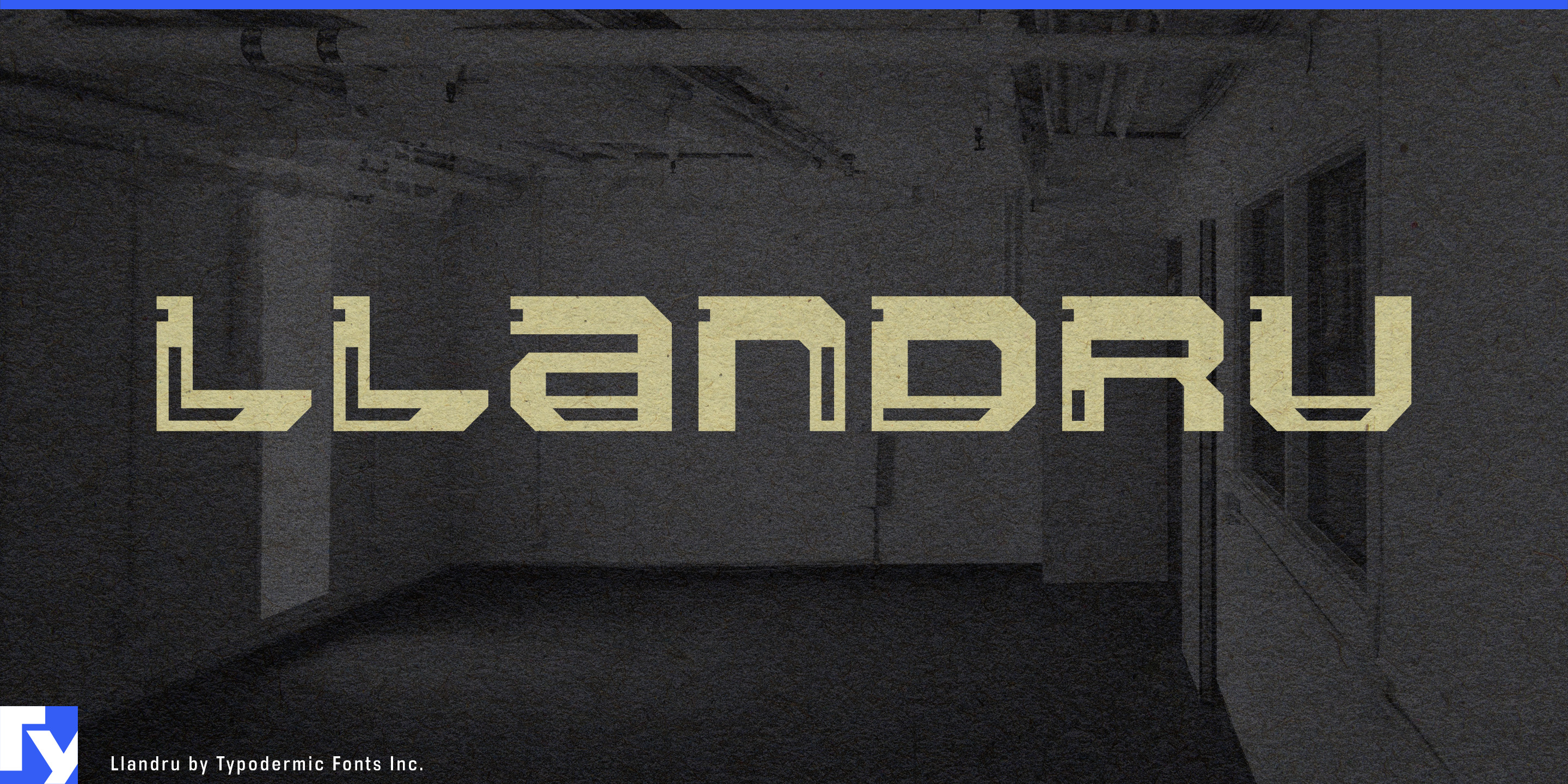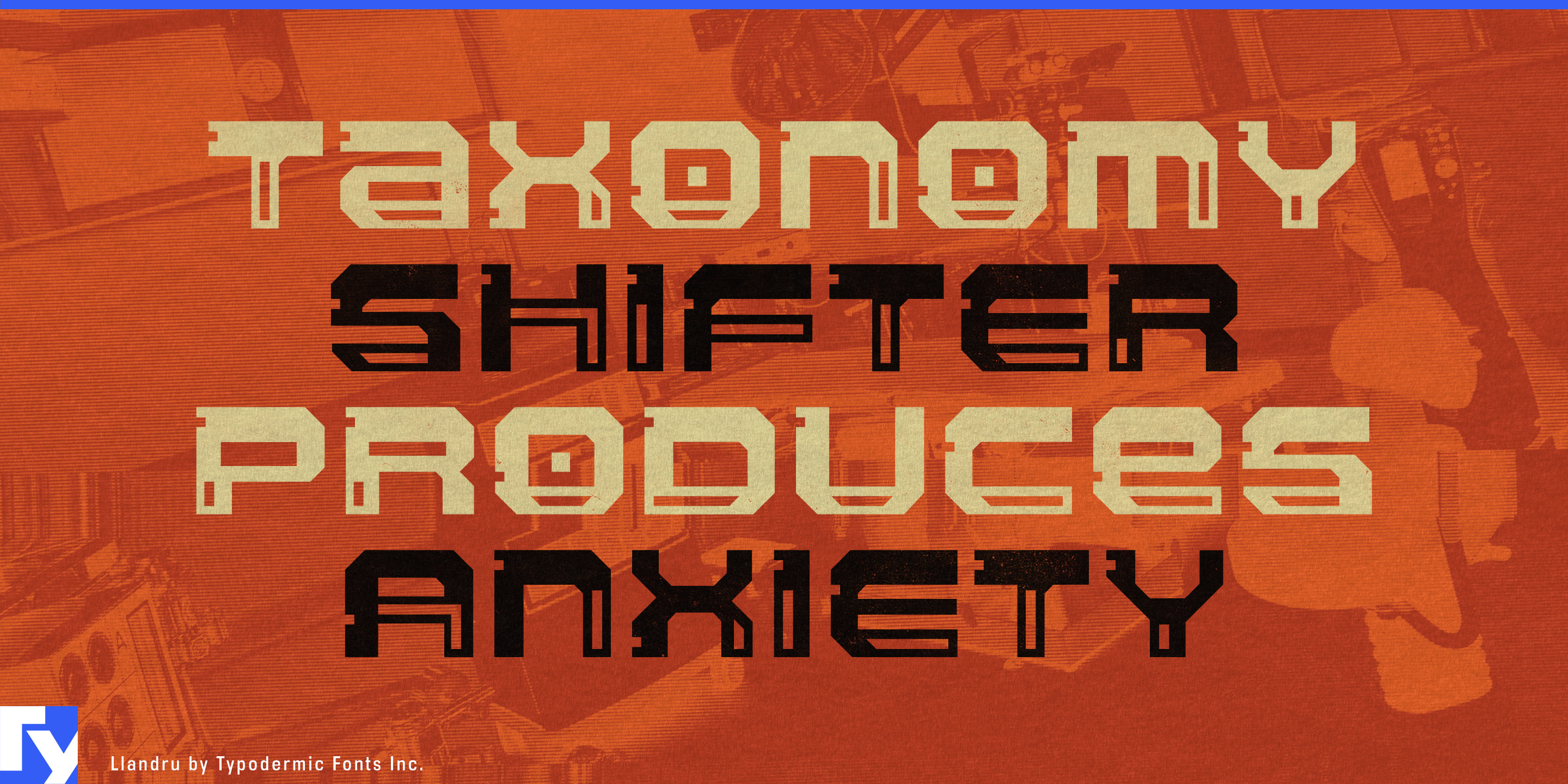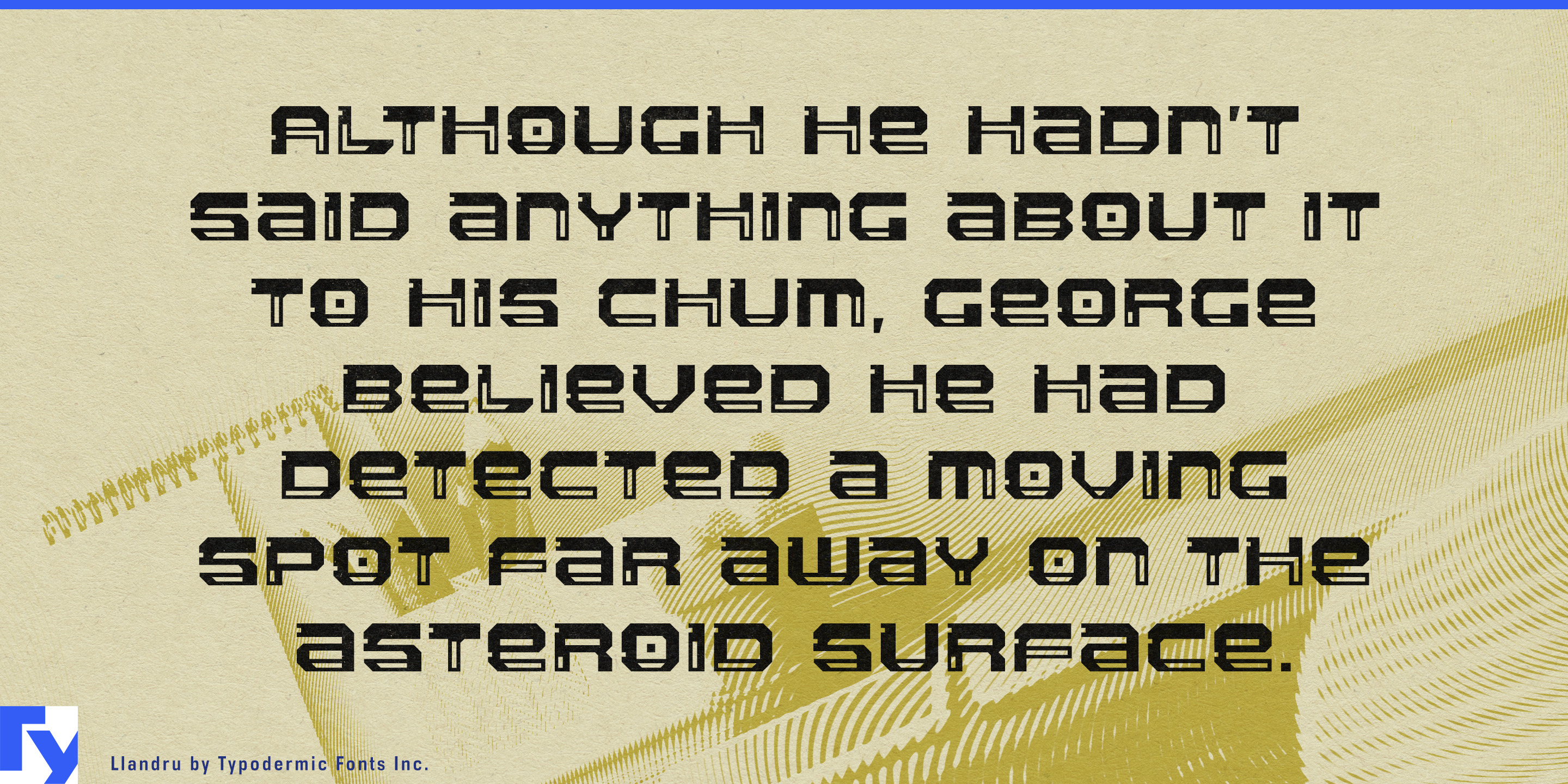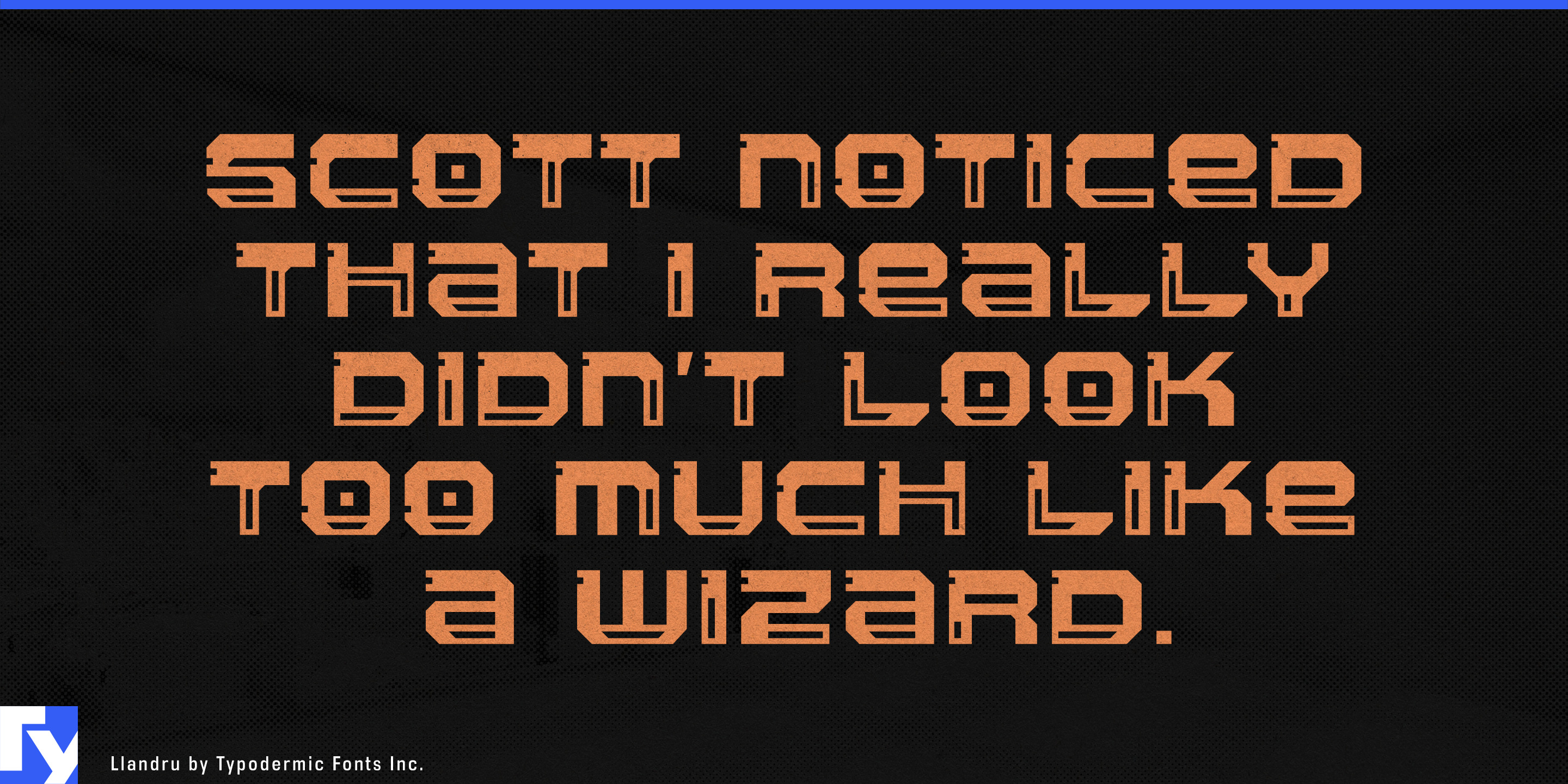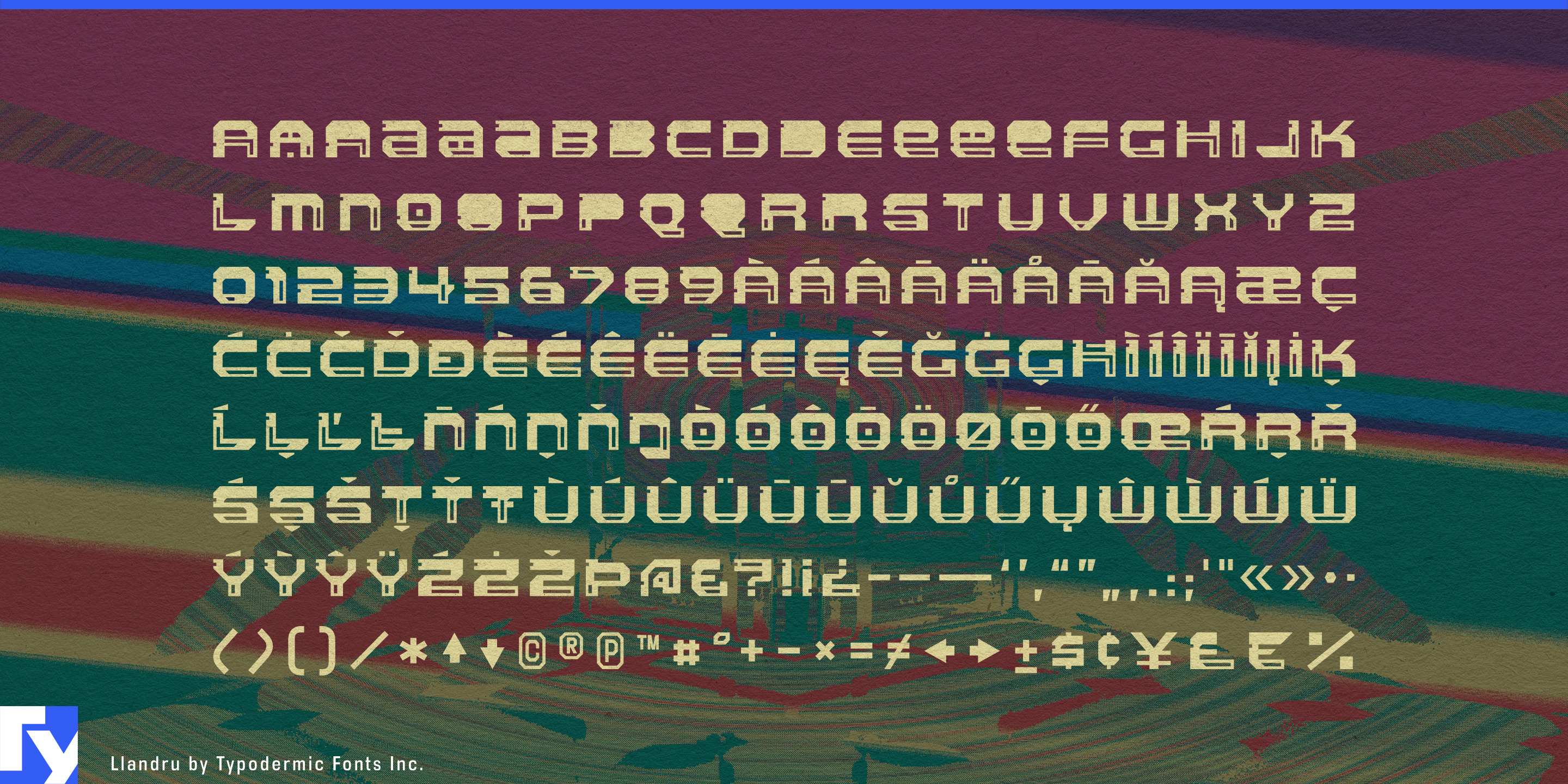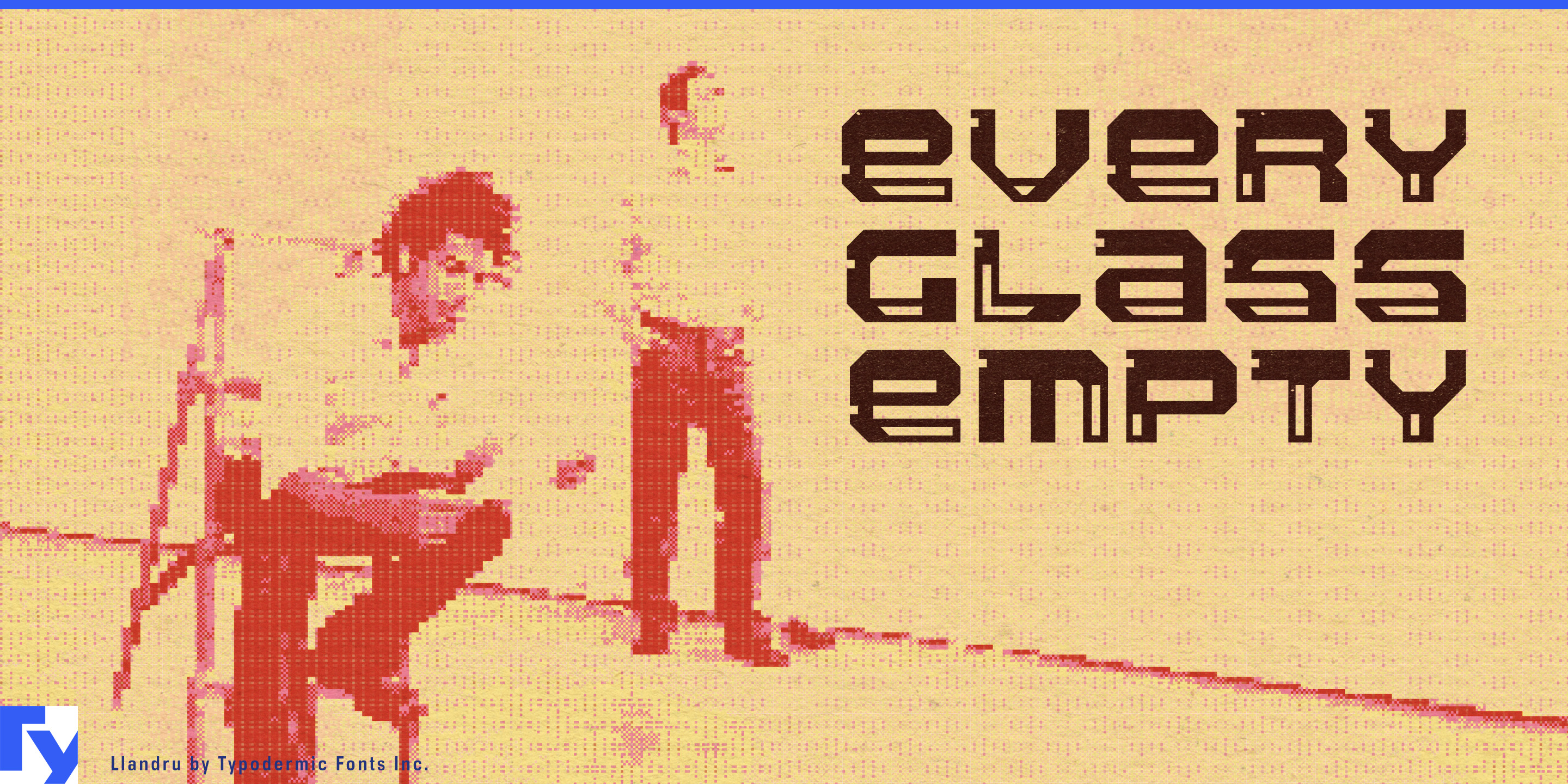
Llandru
For years, computer hardware tried to disappear. Storage moved into the cloud, ports vanished, and devices became smooth sealed slabs. Llandru comes from an earlier relationship with computing, when floppy disks, removable drives and cartridges gave technology a visible physical grammar. That once-obsolete reference now gives the typeface an unexpected place among computers that are becoming objects again.
Its wide, squared forms suggest slots, housings, removable modules and molded electronic parts rather than pixels or terminal text. That makes Llandru particularly effective when lettering is attached to a machine: a project name on a cyberdeck enclosure, a badge on a custom portable computer, a model designation on a storage device or a label built into a 3D-printed case.
Cyberdecks, Raspberry Pi builds and other one-off hardware projects are especially natural territory. Llandru can handle machine names, enclosure badges, boot titles and project graphics without relying on monospaced terminals or cyberpunk warning labels; its geometry feels closer to the hardware itself.
Portable SSDs, card readers, backup drives and drive enclosures bring the original inspiration full circle. Home NAS systems and personal servers extend the same idea to larger equipment: machines built specifically to keep data somewhere physical and visible.
Transparent, modular and repairable electronics provide another useful setting. Open-hardware kits, upgradeable handhelds, small-batch gadgets and devices with exposed internal structure can use Llandru for product identities and packaging, while makerspaces and hardware labs can carry the same language into project walls, equipment zones and workshop graphics.
Llandru began with the physical vocabulary of removable computer hardware. Its useful territory now is tangible computing: cyberdecks, portable storage, personal servers, repairable electronics and other machines designed to be carried, opened, modified, upgraded or simply noticed.
- Geometric, Angular, Modular
- Expanded
- Alternates, Open counters